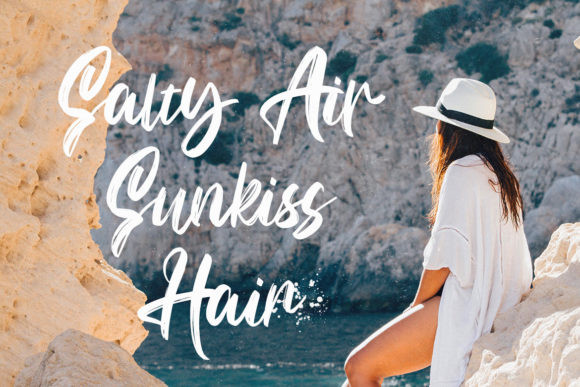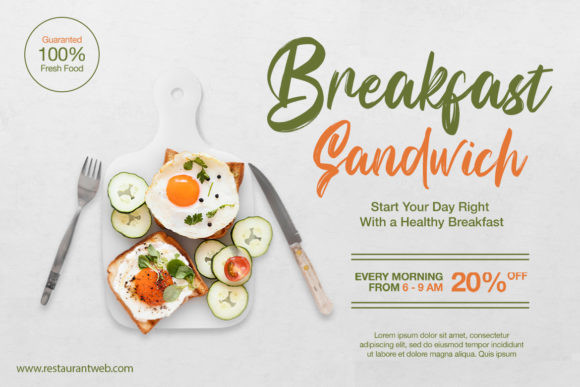
Bunaken Font
Bunaken looks assertive, yet sophisticated and cursive. Fall in love with its incredibly versatile style and use it to create gorgeous wedding invitations, beautiful stationary art, eye-catching social media posts, and much more!